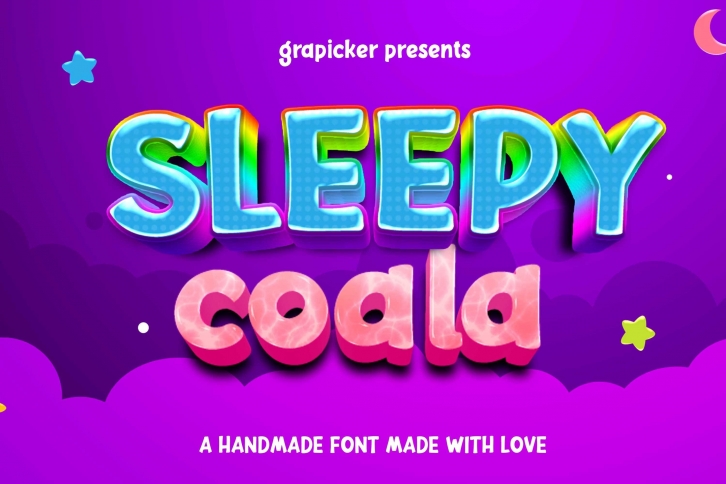
Sleepy Coala is a great font that was designed by Arty Fonts. Imagine the amount of combinations you can create using this font! The archive is 11.30 MB and it was released on December 31, 2020. Sleepy Coala looks beautiful on wedding invitations, greeting cards, logos, posters, labels, t-shirt designs, logos, business cards and is perfect for use in ink or watercolor works, fashion, magazines, packaging and food menus, children's books and more!